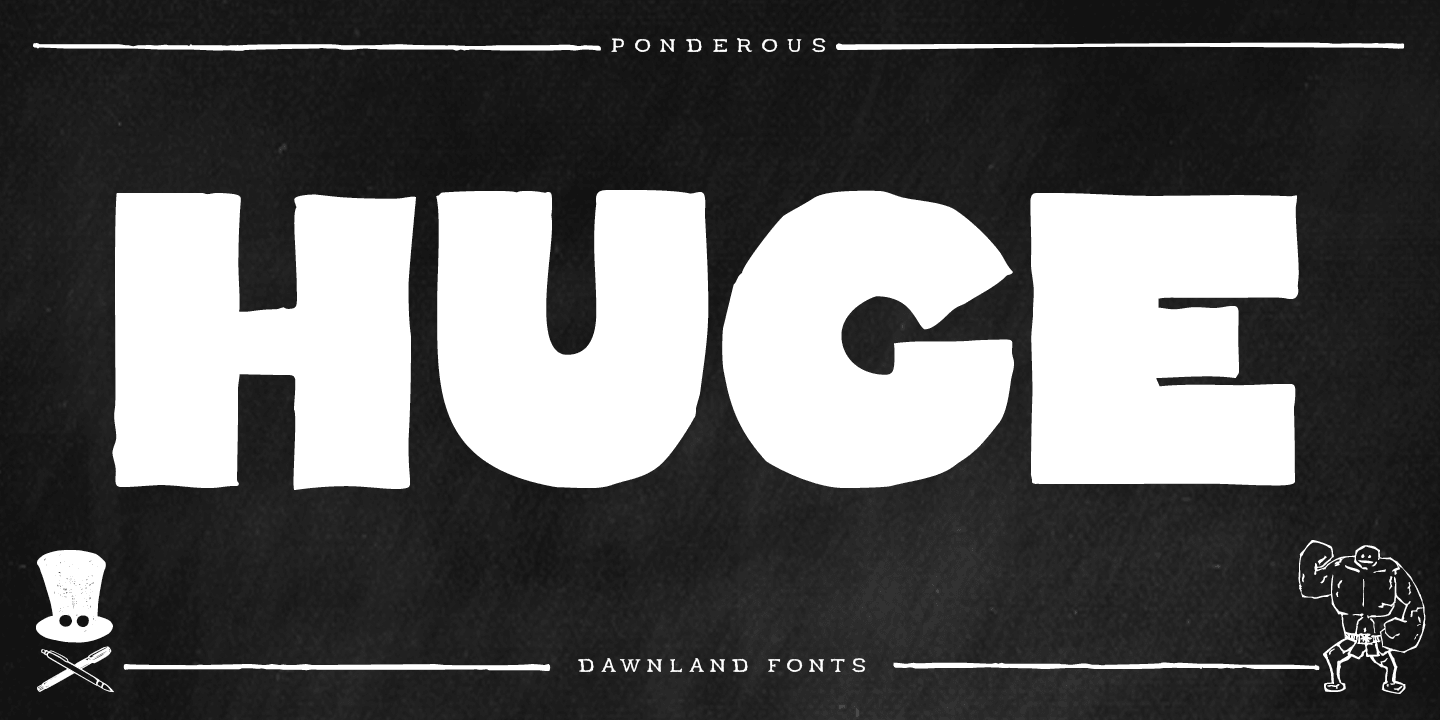
Ponderous is a display sans, hand display and kids font family. This typeface has six styles and was published by Dawnland.
He’s heavy!
He’s huge!
He’s PONDEROUS!
Regular & outlined hand drawn upper case display font for maximum impact headlines - or make your text dance combining the different sizes & variants of the font - Regular, Condensed & Expanded!
Lowercase letters hold slightly altered versions of the uppercase letters for a trustworthy and hand drawn look!